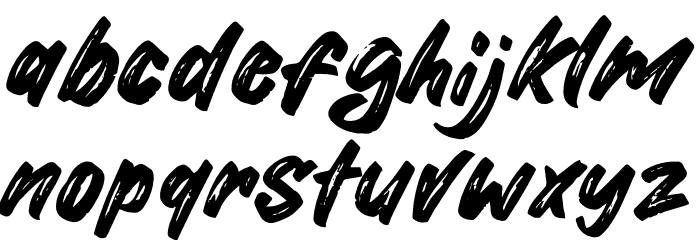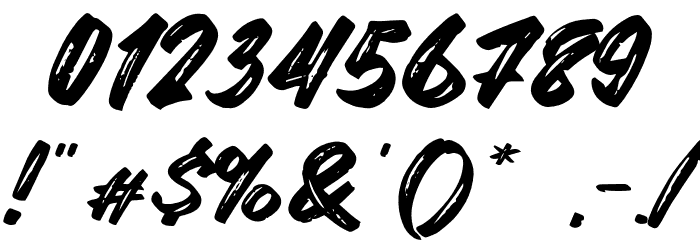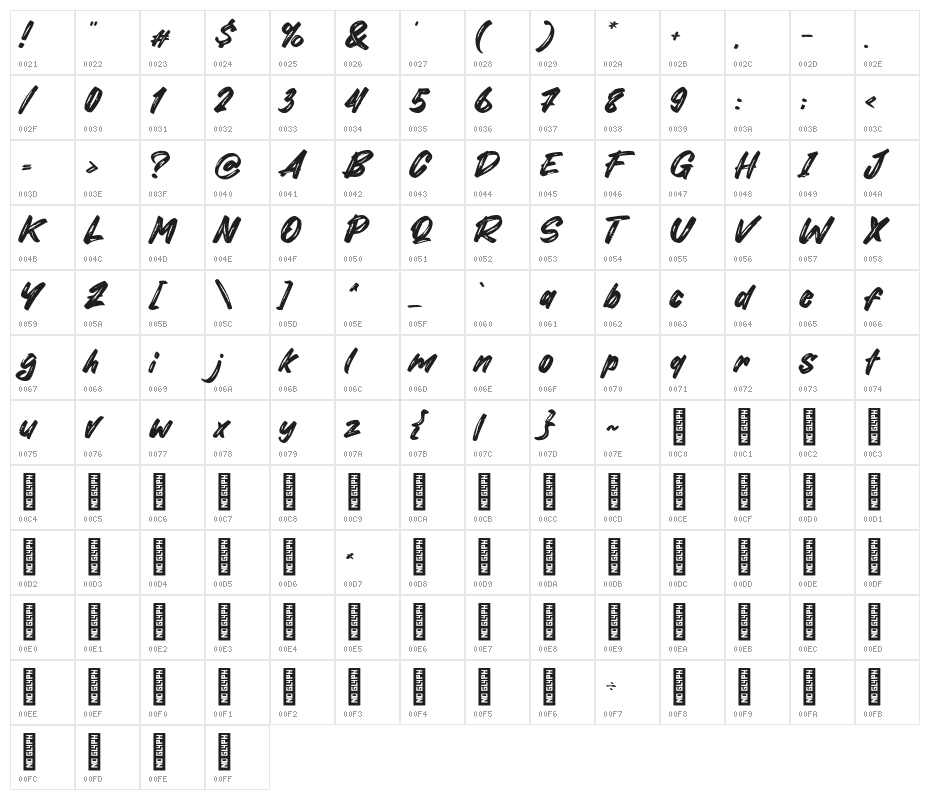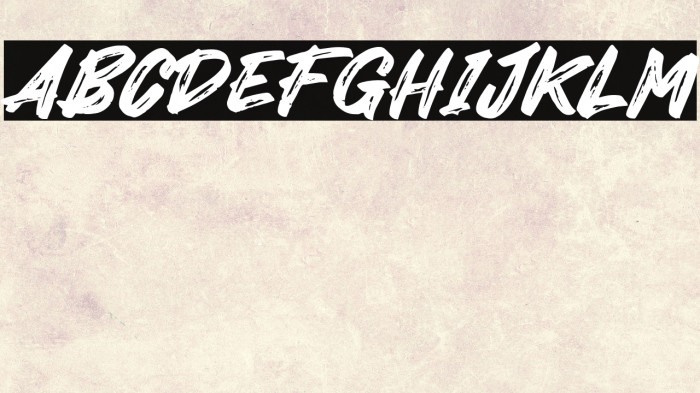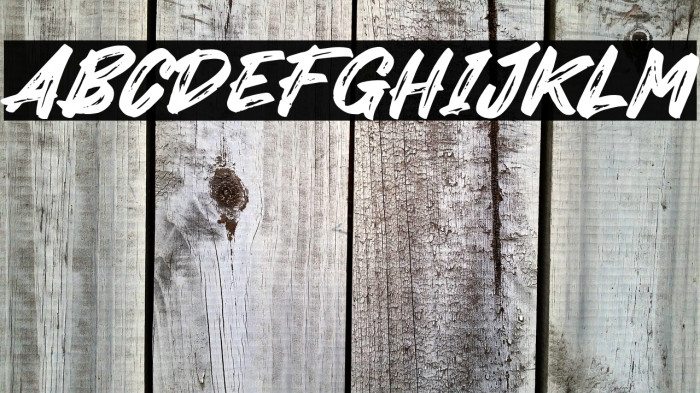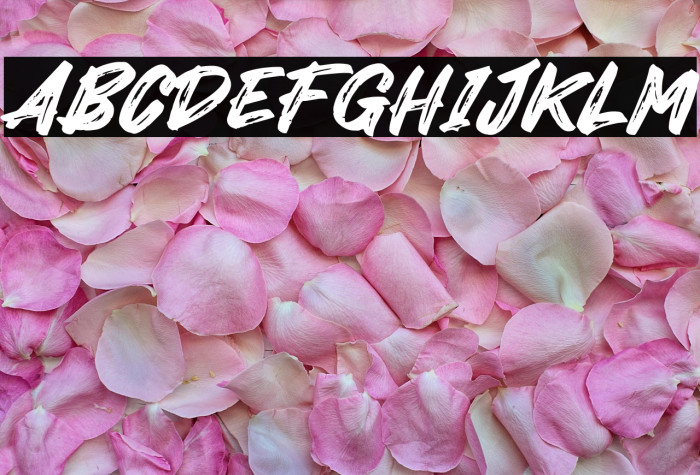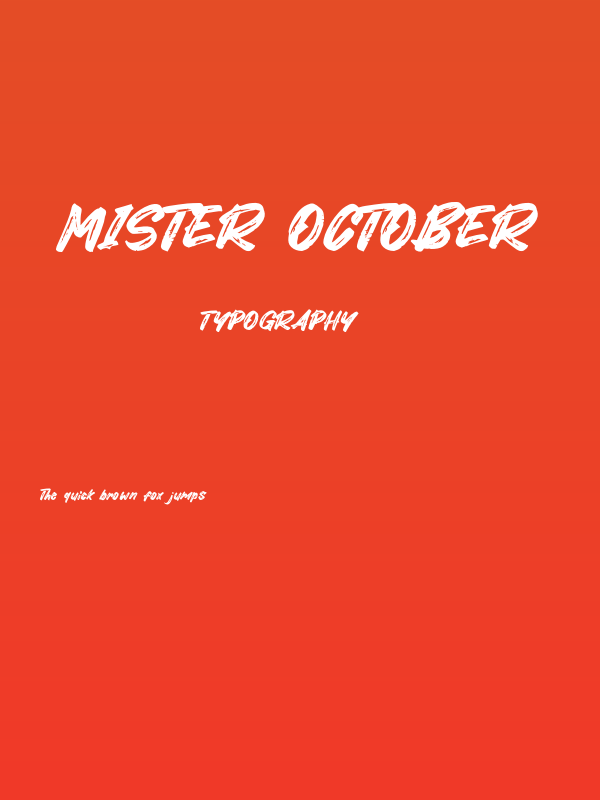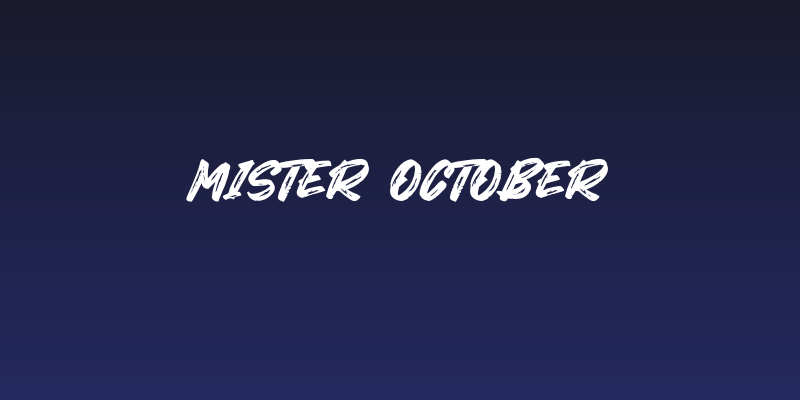
Mister October Font
This font features a bold, energetic script style with a hand-painted appearance. The strokes are thick and dynamic, giving each character a sense of movement and flair. The letters are slightly slanted, adding to the casual, yet impactful look. The texture within the strokes suggests a brush-like quality, making it ideal for designs that require a personal and artistic touch. The uppercase and lowercase letters maintain a consistent style, while the numbers and special characters complement the overall aesthetic. This font is perfect for projects that aim to capture attention with a bold and creative statement.
A bold, brush-style script font with dynamic strokes and artistic flair.
- Font: Mister October
- Proposed Projects: Ideal for branding, posters, album covers, and any design needing a bold, artistic touch.
- Category: Script